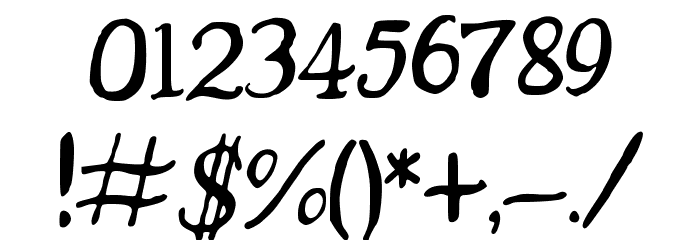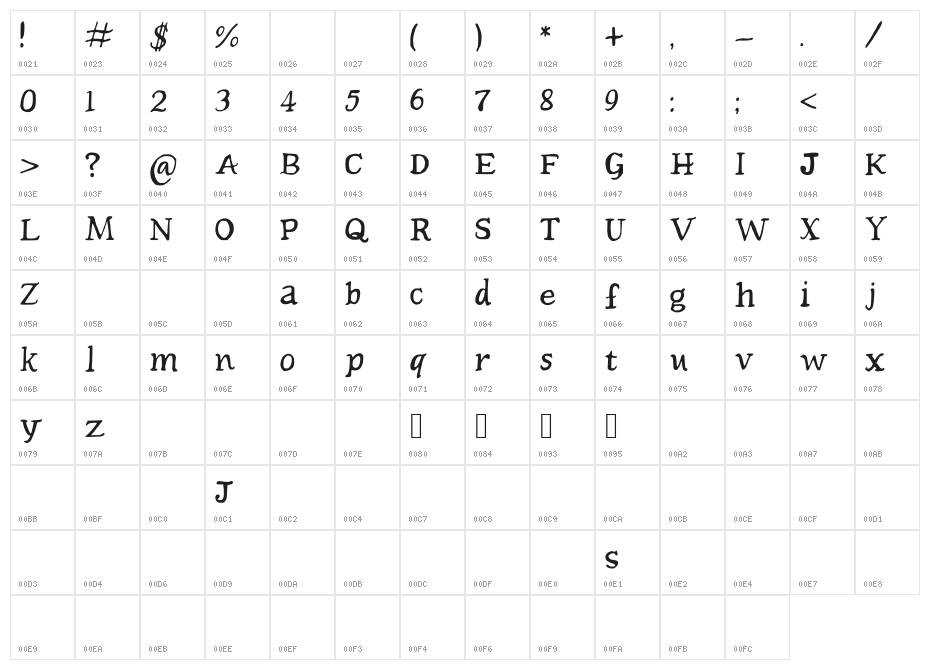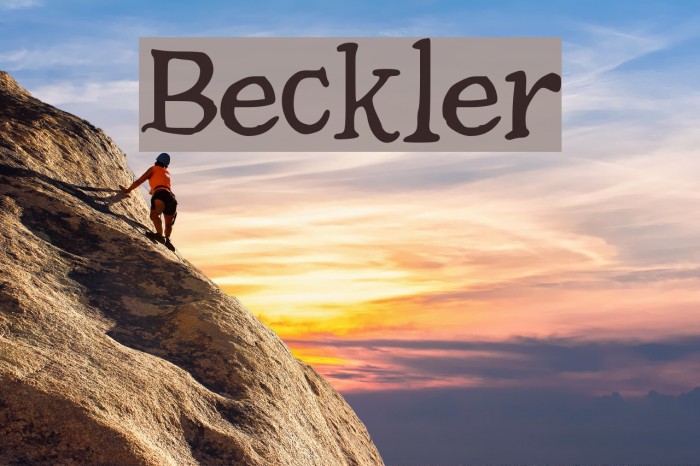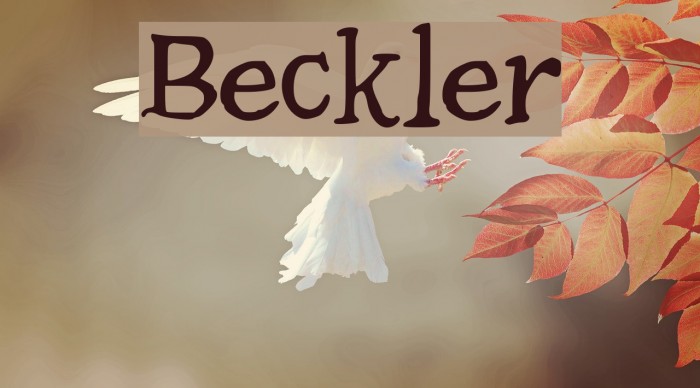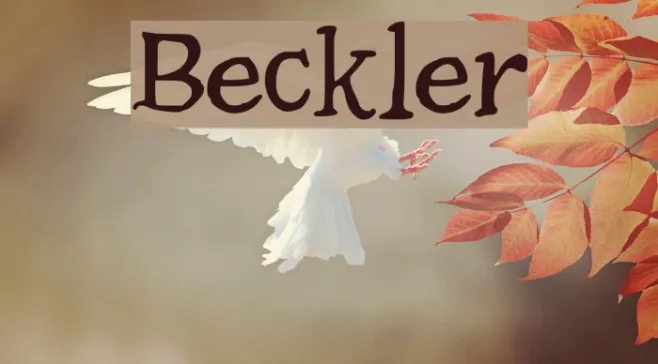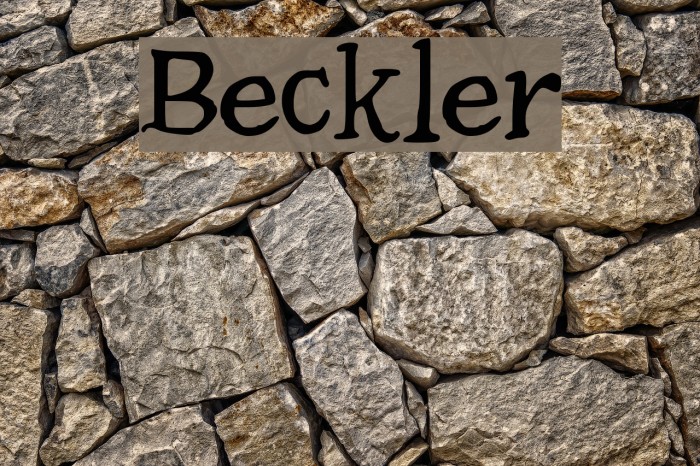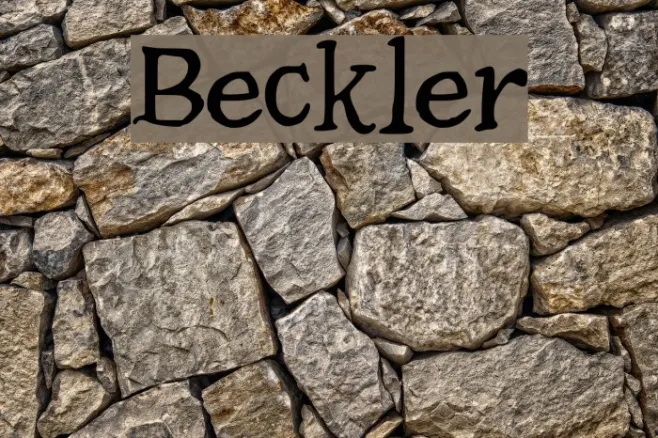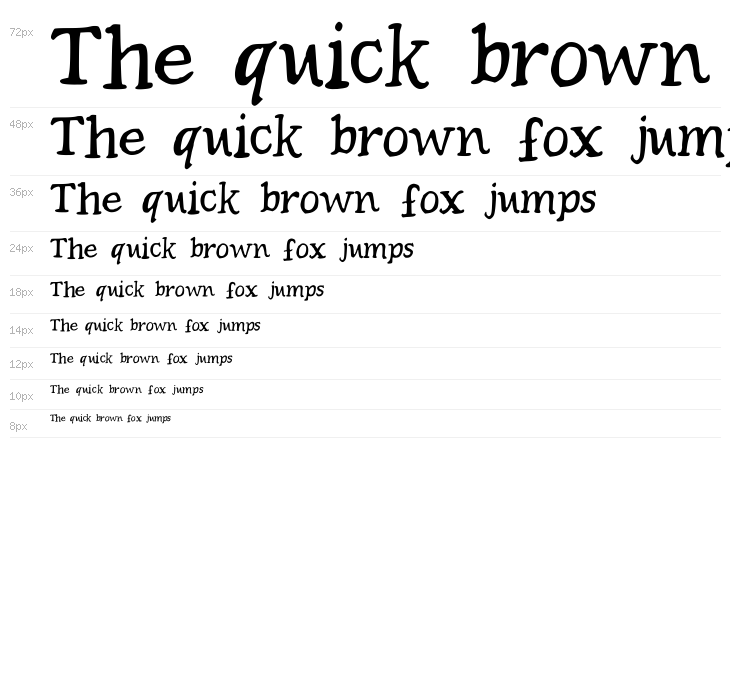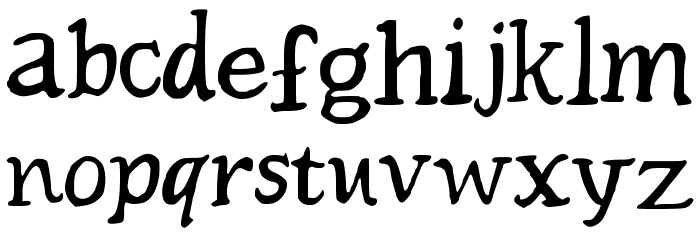
Beckler Font
Beckler Description
This font features a playful and whimsical style with a hand-drawn appearance. The characters have a slightly uneven baseline, giving them a lively and dynamic feel. The strokes are varied in thickness, adding to the casual and informal look. The uppercase letters are bold and prominent, while the lowercase letters maintain a consistent flow with rounded edges. Numbers and special characters are crafted with the same playful aesthetic, making them suitable for creative and artistic projects. The overall design is approachable and friendly, perfect for conveying a sense of fun and creativity.
| Proposed Projects | Ideal for children's books, greeting cards, playful branding, and creative posters. |